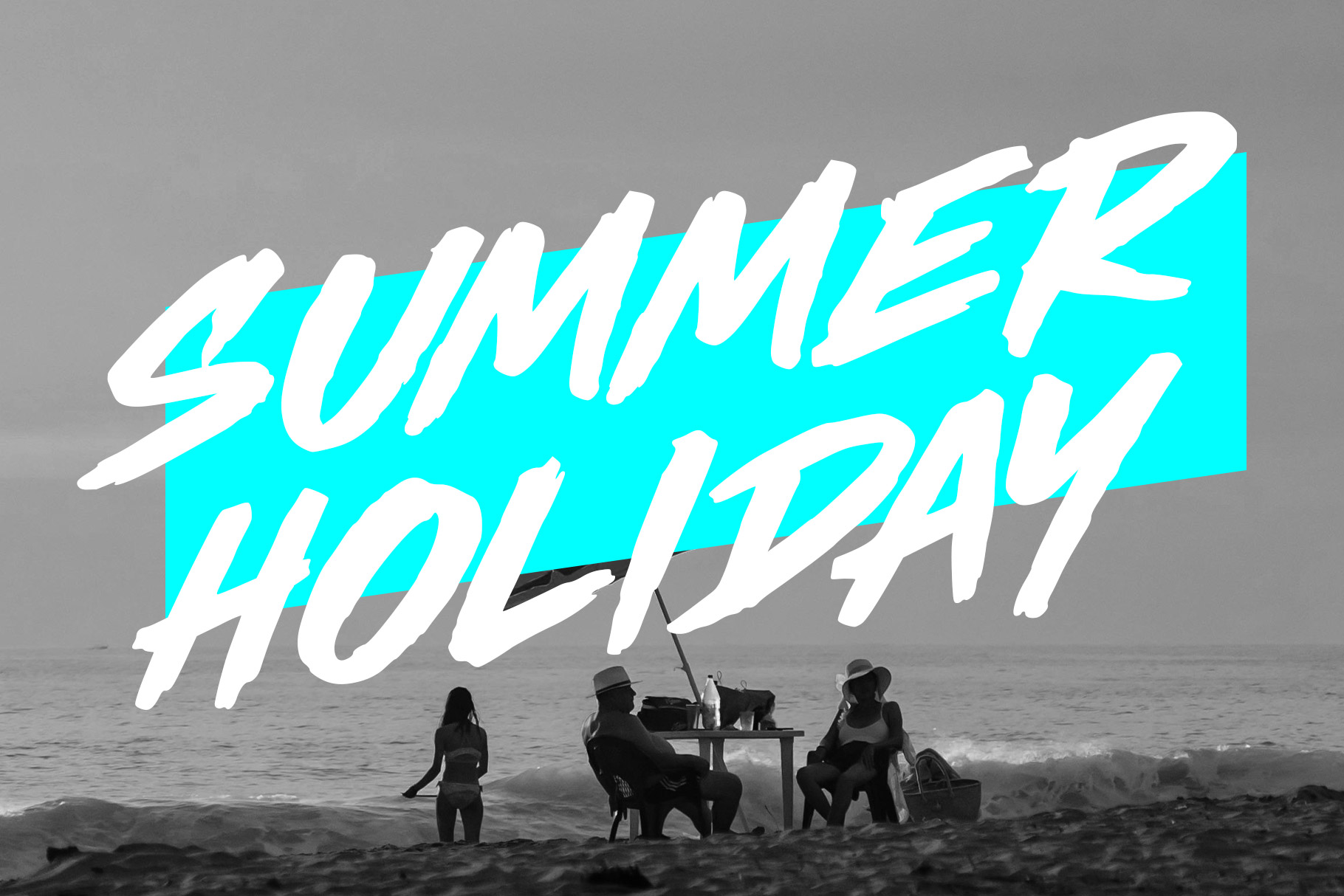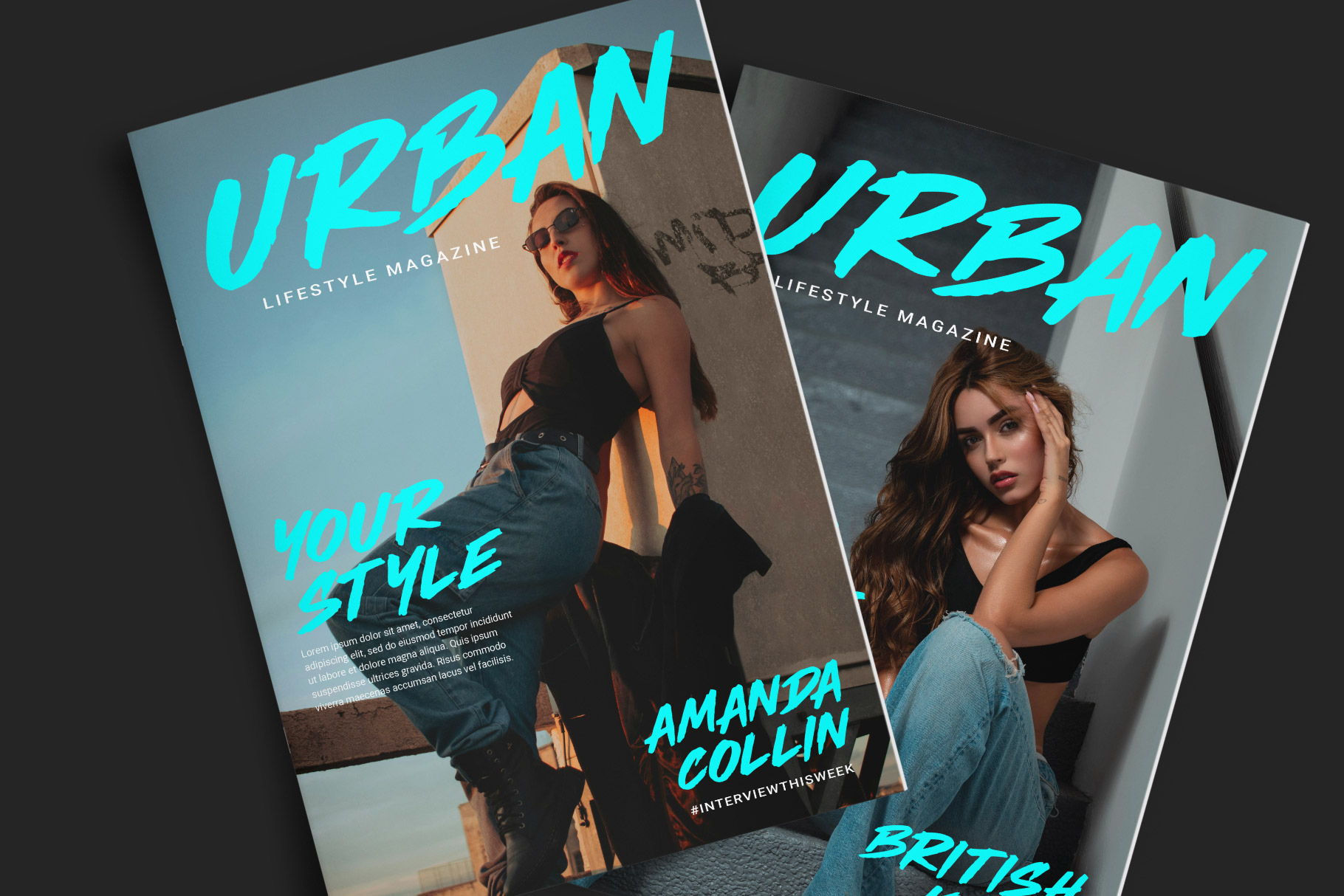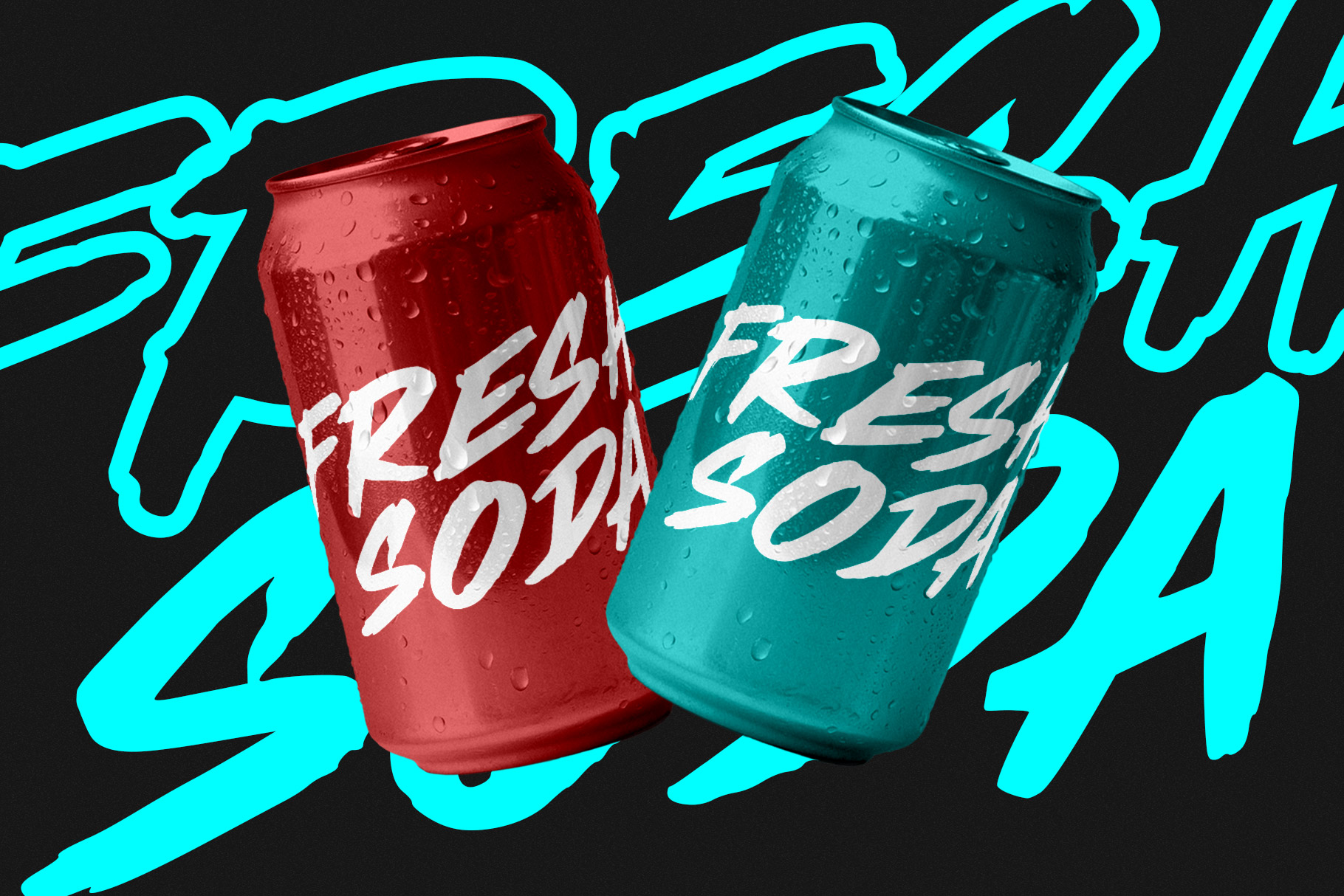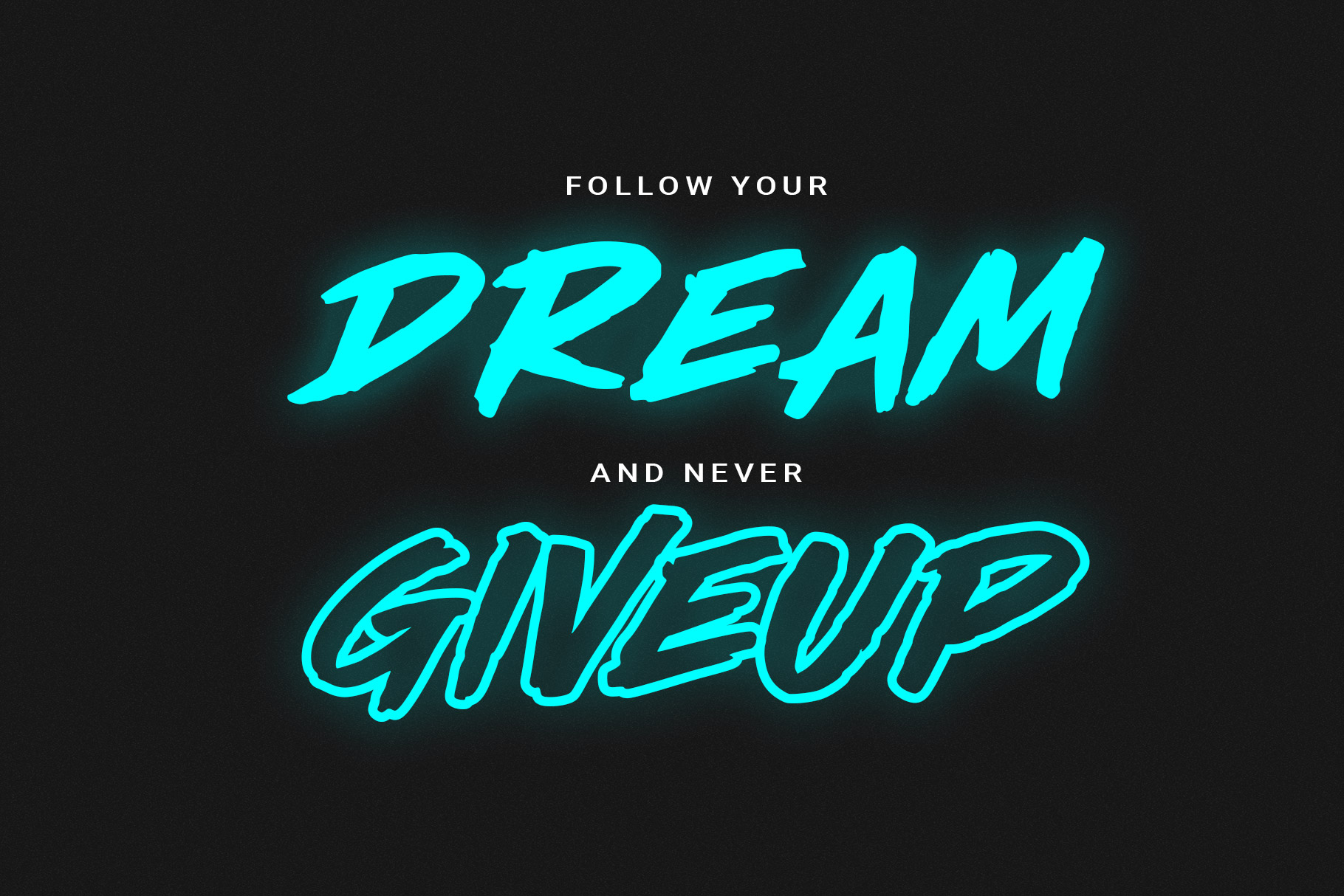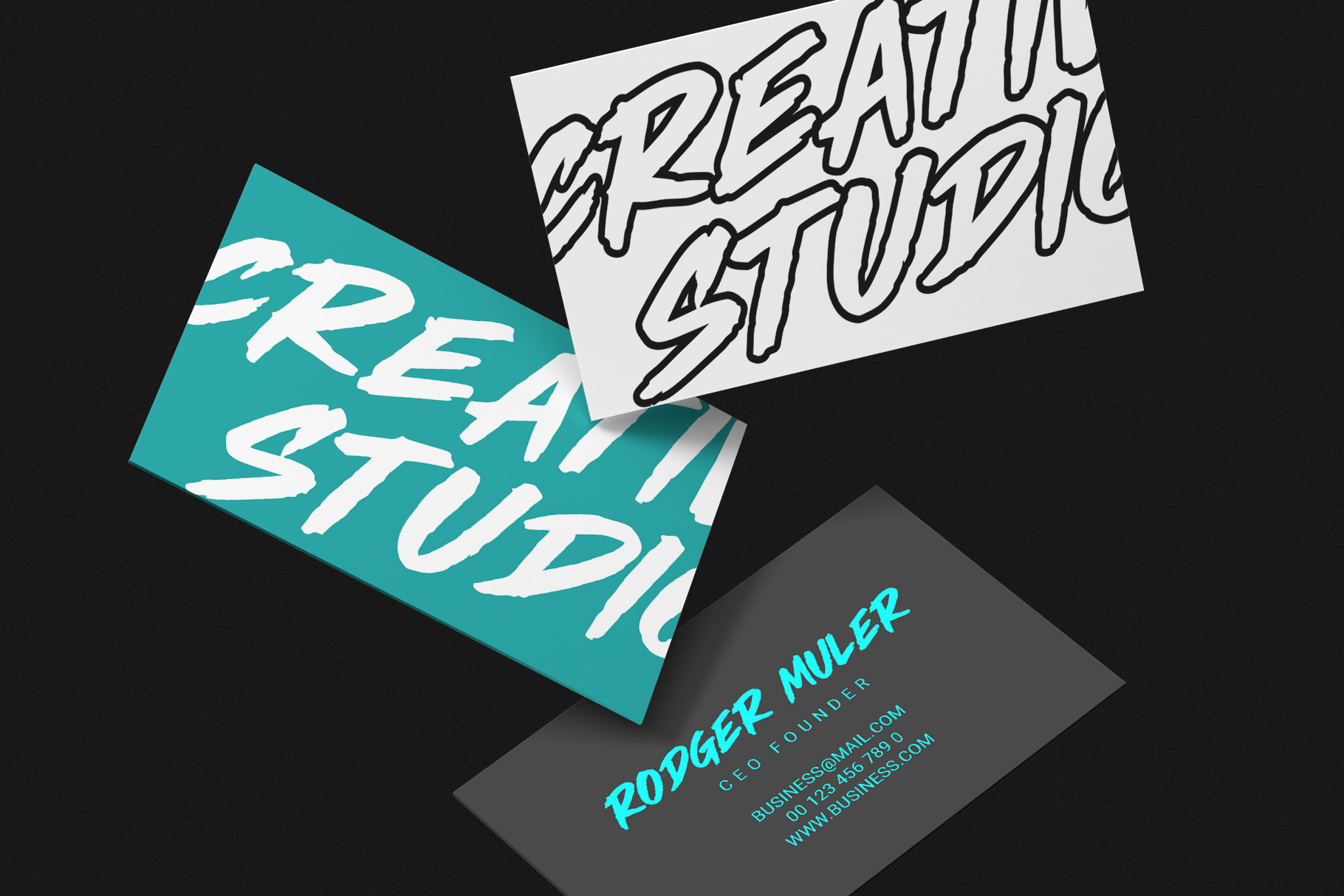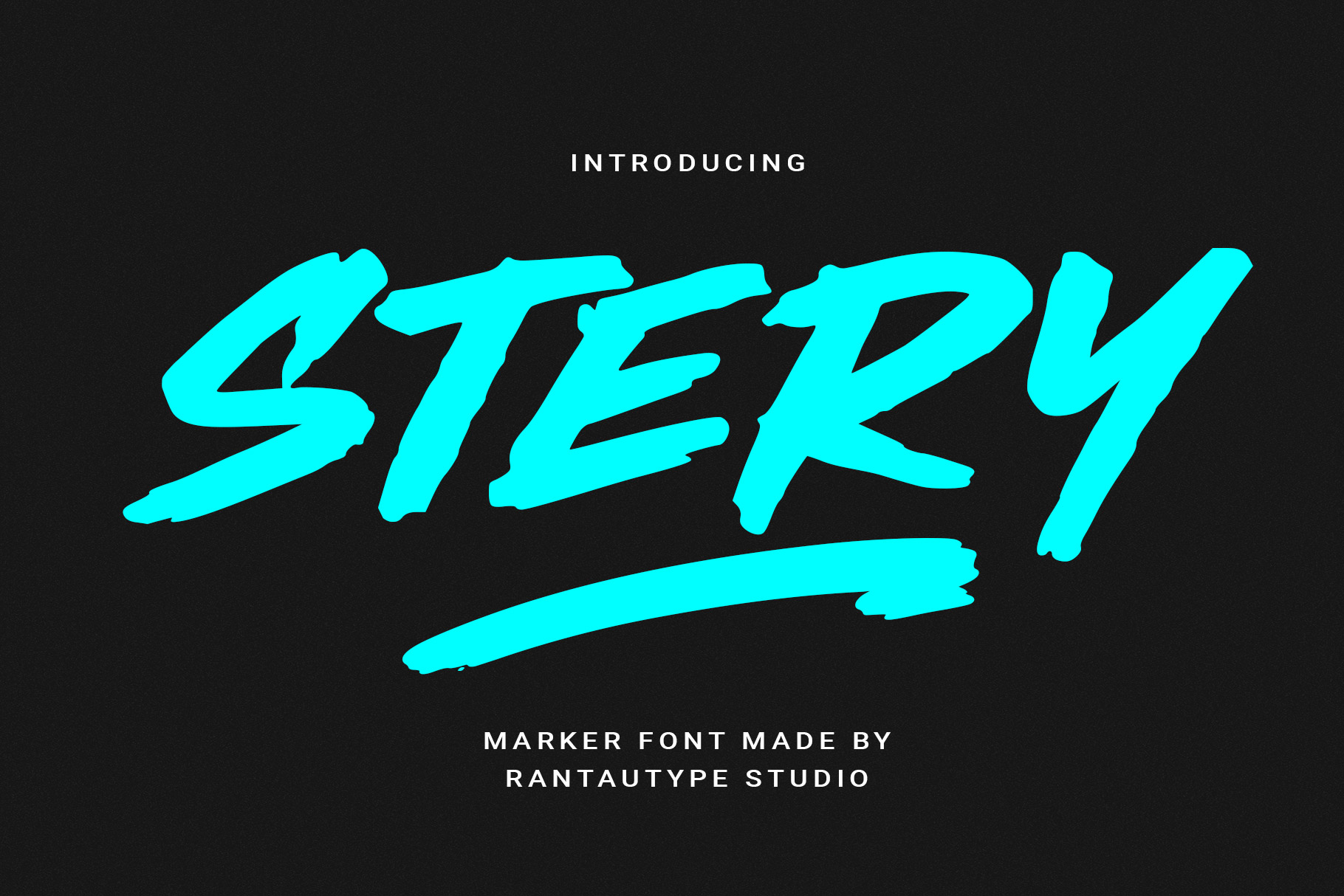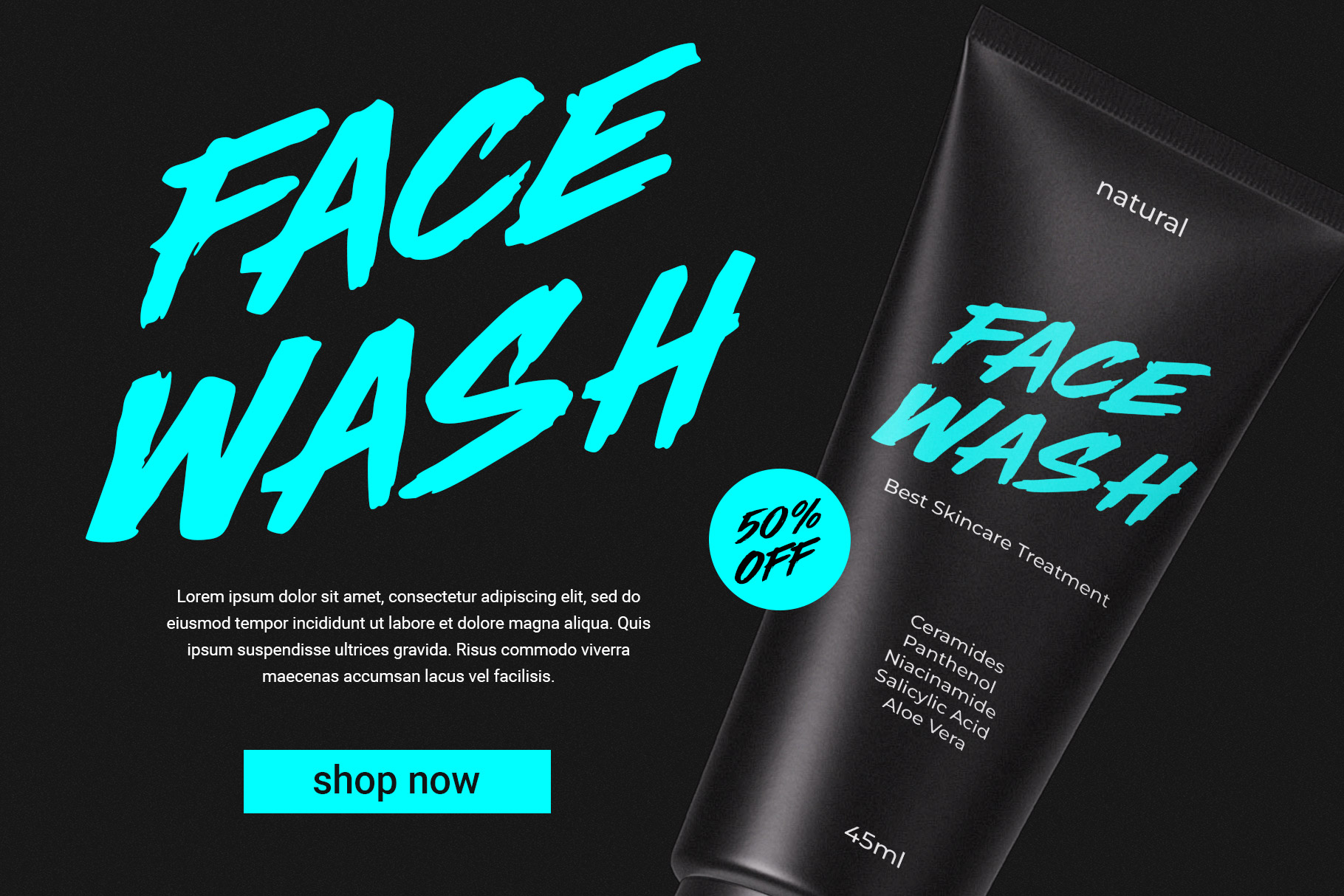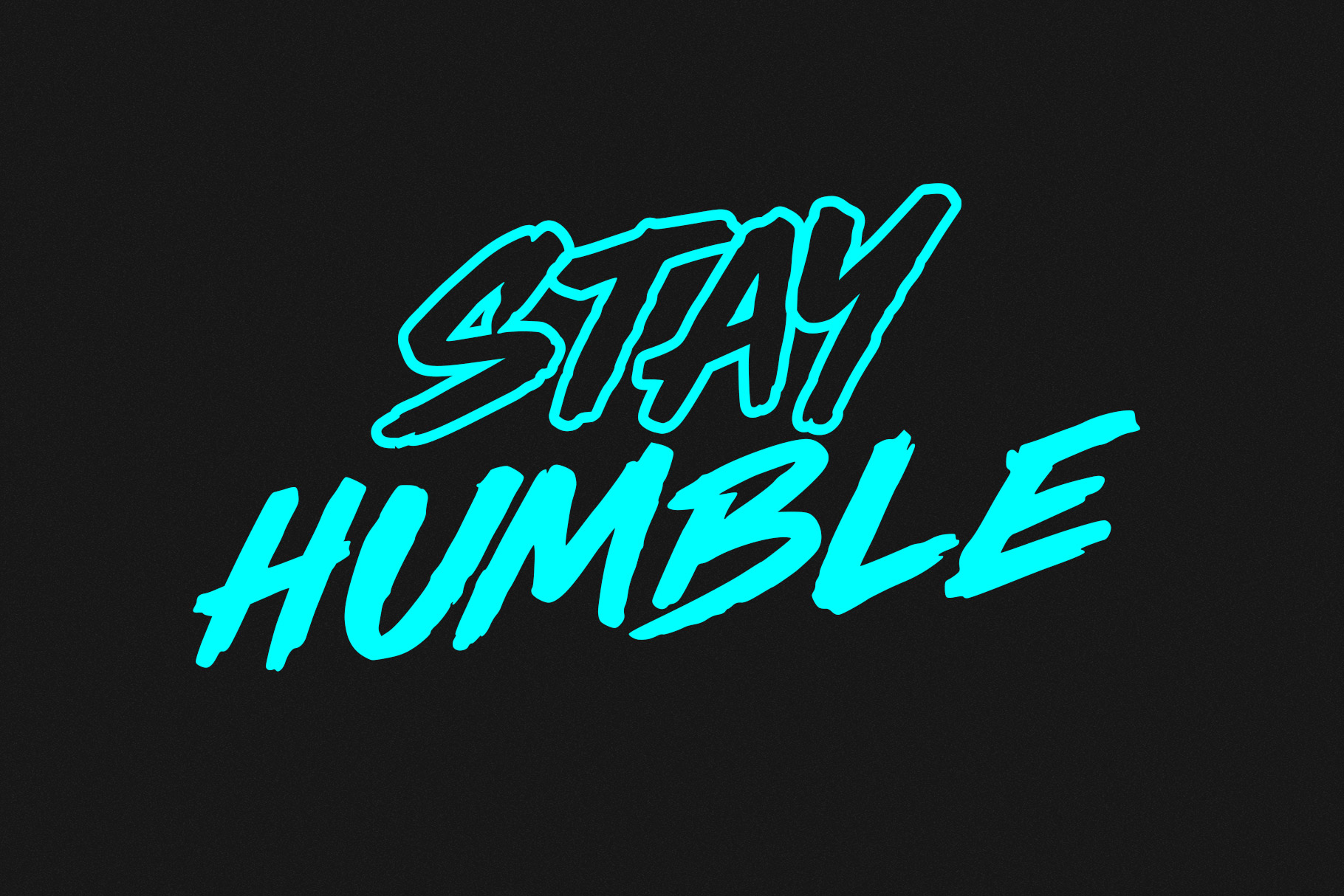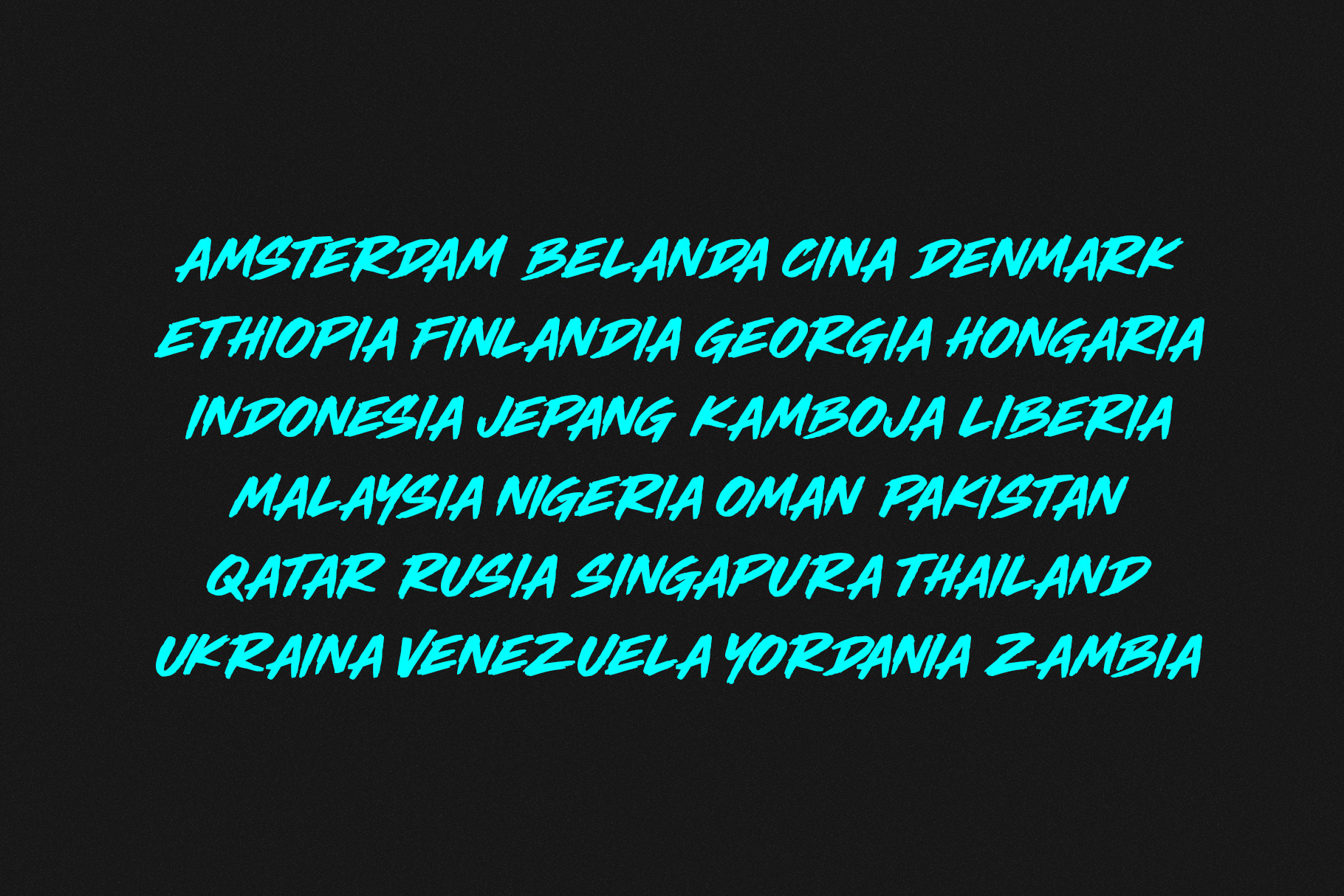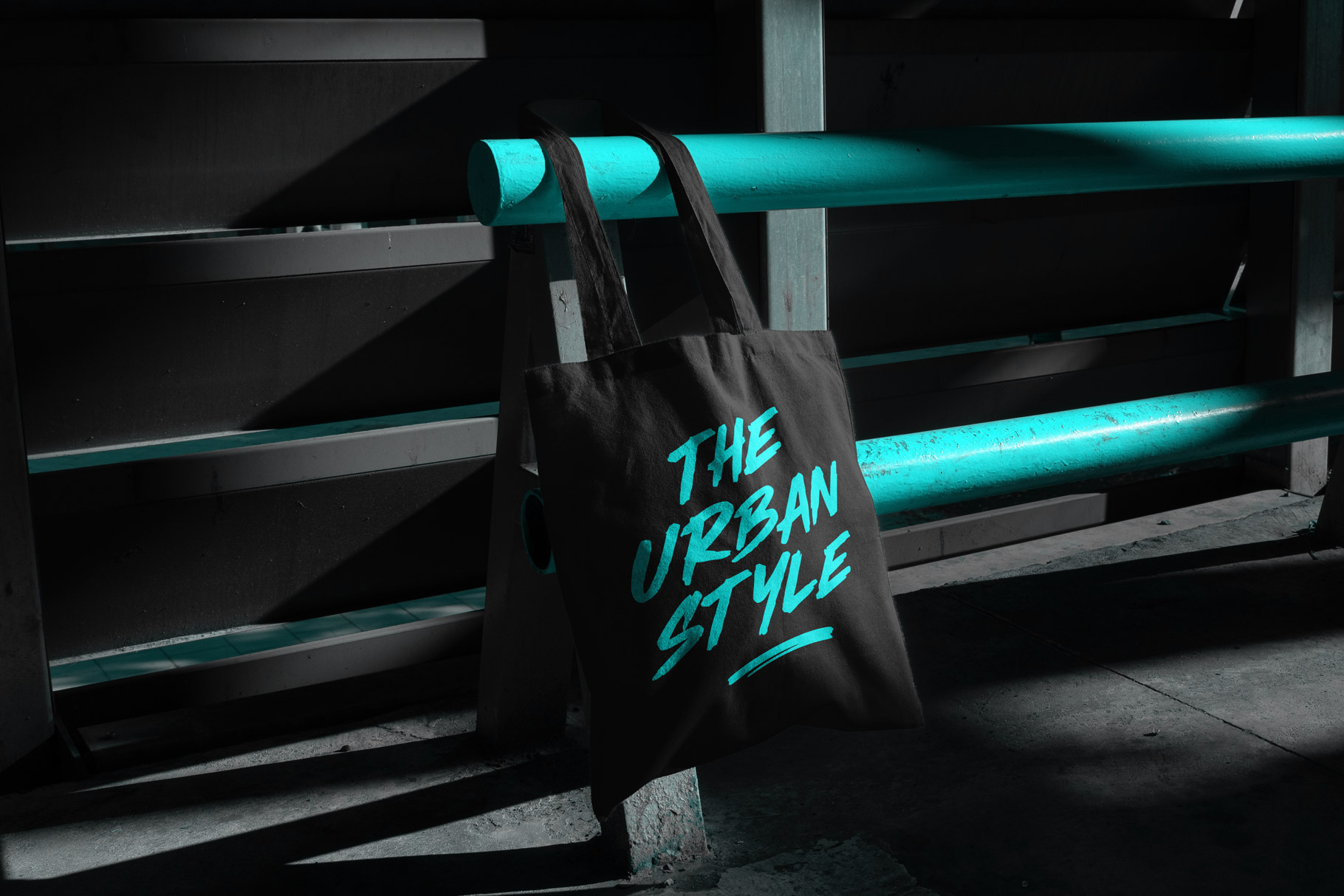
Stery Regular
Stery Outline
Stery is marker font brings bold energy, natural movement, and expressive personality into every design. Inspired by authentic handwritten strokes, this typeface captures the raw texture and fluid rhythm of a real marker pen, creating a casual yet confident visual style.
Stery is a perfectly choice for any creative endeavor, creating, modern, lifestyle design such as logotype, title, cover, branding, display and magazine, social media posts, advertisements, printed quotes, product packaging, corporate brand, product designs, labels, photography, watermarks, special events and any other project with modern touch.
Stery Marker Font